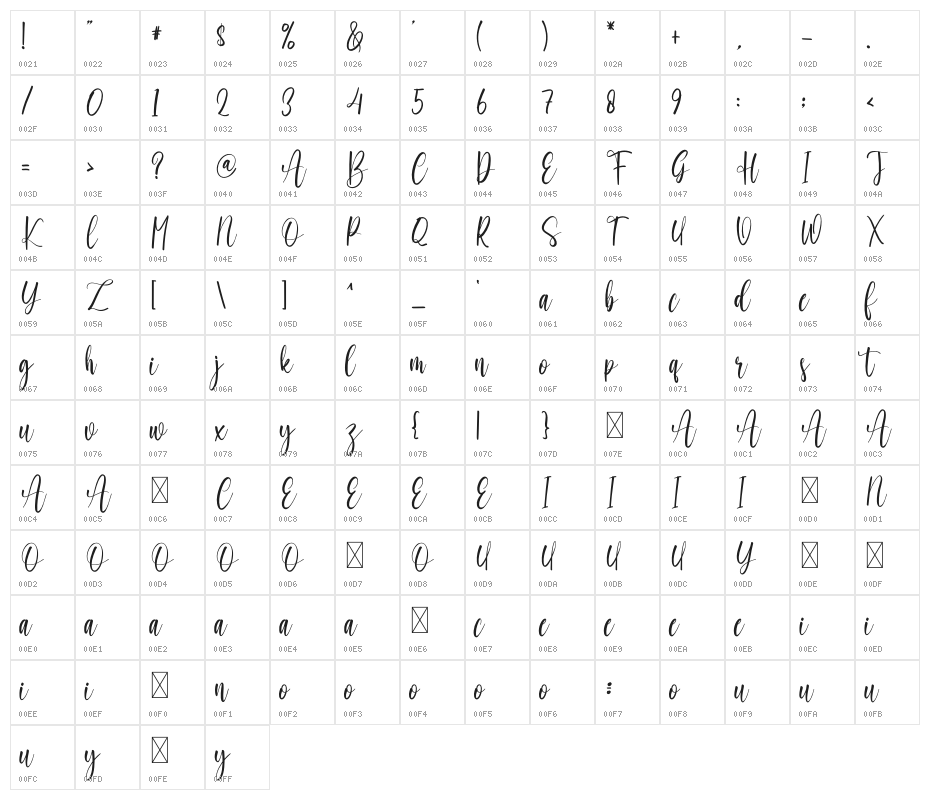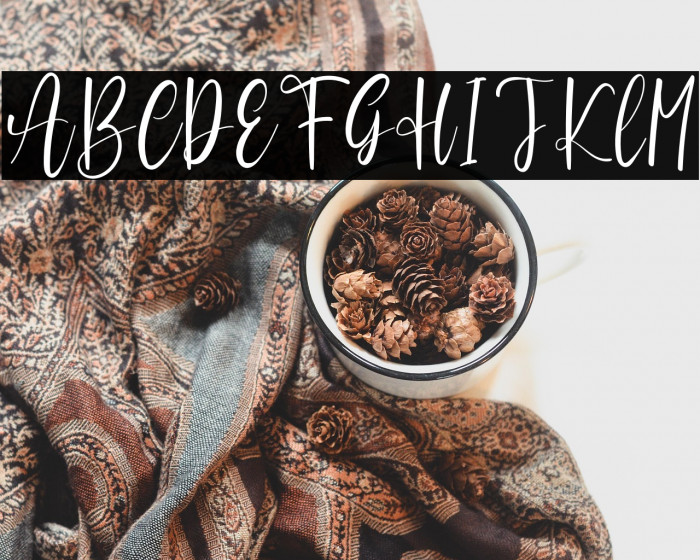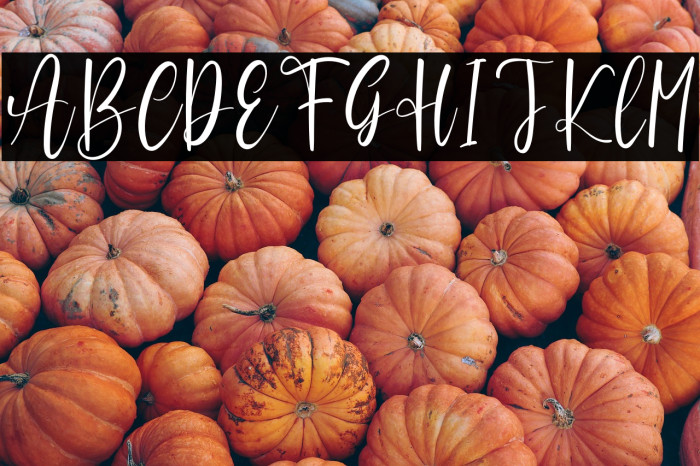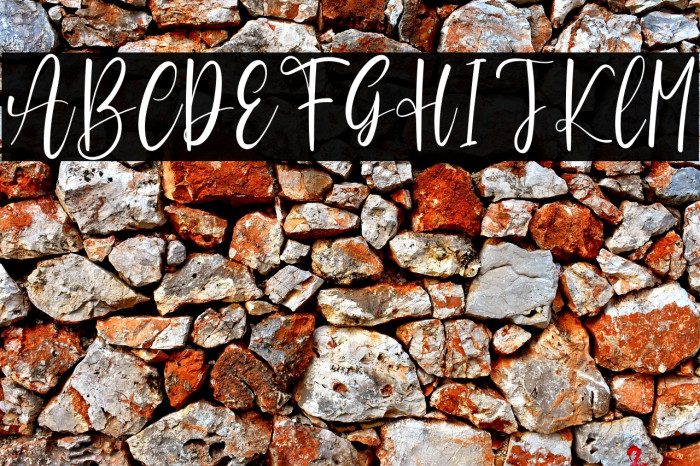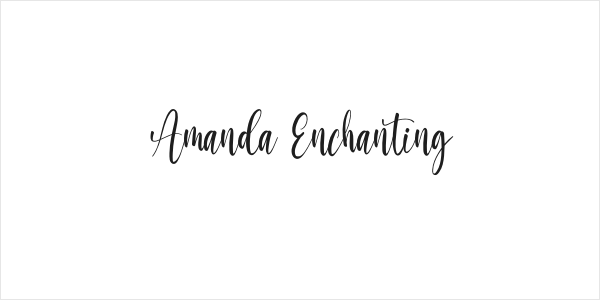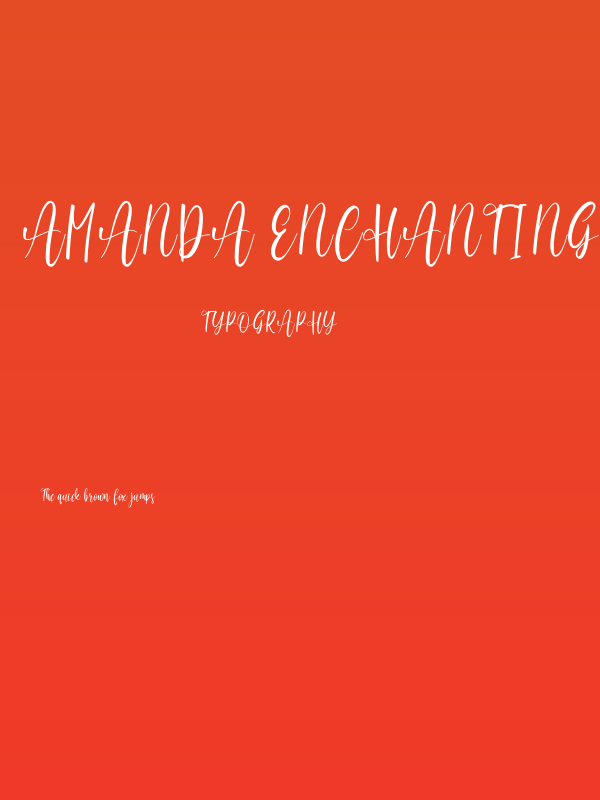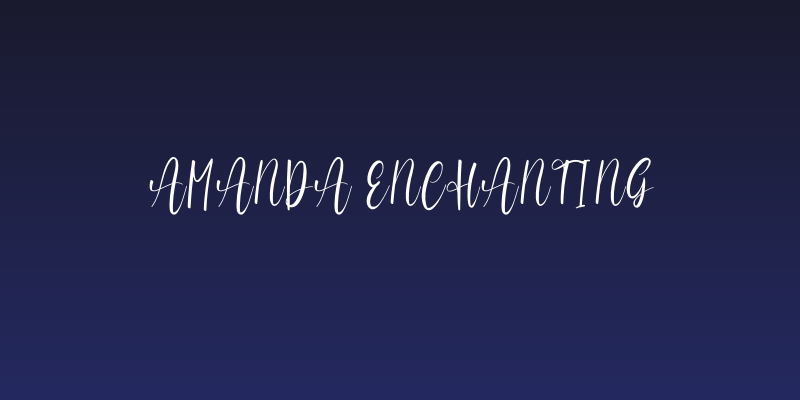
Amanda Enchanting Font
Amanda Enchanting Description
This font exudes a charming and whimsical style, characterized by its flowing, cursive script that mimics elegant handwriting. The letters are interconnected with smooth, sweeping curves, giving it a fluid and dynamic appearance. The uppercase letters are slightly more elaborate, with decorative loops and flourishes, while the lowercase letters maintain a consistent, graceful form. The numerals and special characters are crafted with the same attention to detail, ensuring a cohesive look across all elements. The overall design is both playful and sophisticated, making it suitable for a variety of creative applications.
| Proposed Projects | Ideal for wedding invitations, greeting cards, branding, and any project requiring a personal, elegant touch. |